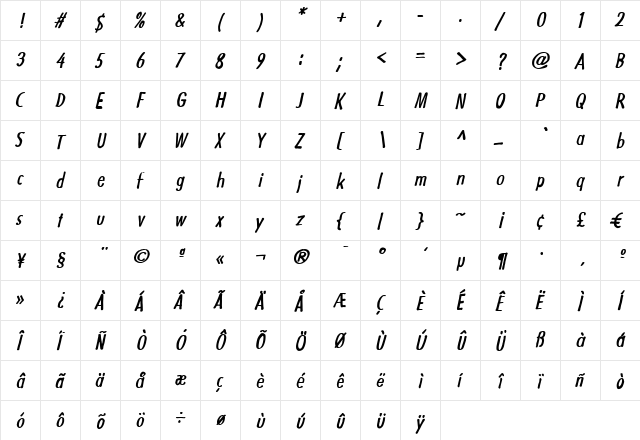
Futuramano Condensed Plain Italic Font Preview
| Style | Plain Italic |
Design Context for Futuramano Condensed Typeface
Futuramano Condensed channels digital-age aesthetics through its sharp, structured letterforms — ideal for brands that want to signal innovation. Its italic angle brings a sense of urgency and motion to the letterforms. The condensed width makes it efficient for tight spaces without sacrificing legibility.
Pro Tip: Use Futuramano Condensed in combination with a neutral sans for body text. Let it define the brand voice in headlines while keeping reading comfortable elsewhere.